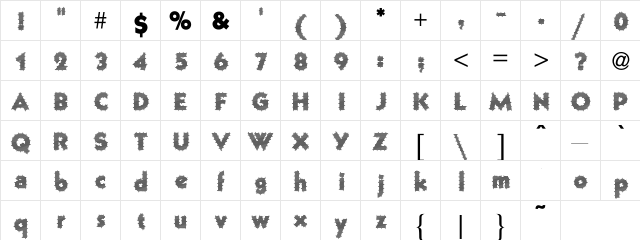
Fence Wire Regular Font Preview
Fence Wire Regular
Design Context for Fence Wire Typeface
Fence Wire is a composed and adaptable typeface that performs quietly and consistently across a wide range of design contexts.